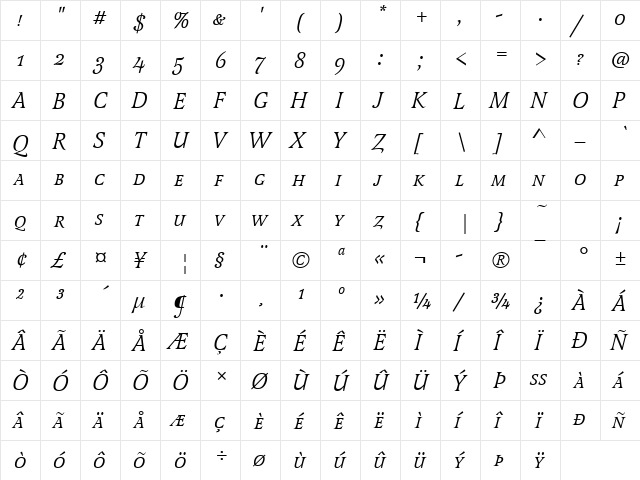
Latienne Becker Caps Italic Font Preview
Latienne Becker Caps Italic
Latienne Becker Caps Italic Font Details
Design Context for Latienne Becker Caps Typeface
Latienne Becker Caps offers clean, dependable letterforms without strong stylistic allegiance, making it a practical choice for designers who need flexibility. The slanted form adds forward momentum and visual energy.
Pro Tip: Try Latienne Becker Caps for annotation and caption copy alongside an upright companion — the contrast in angle creates a dynamic but ordered typographic system.